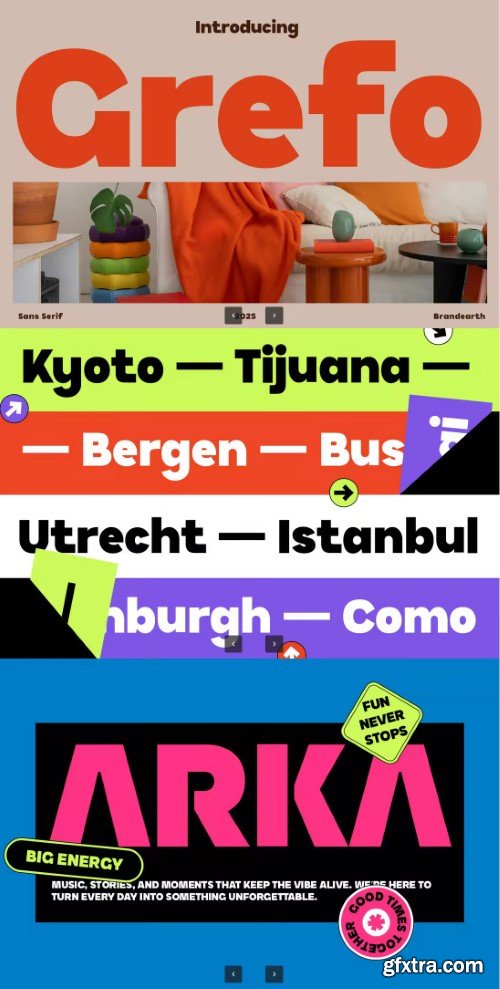
Grefo Sans Serif Font
- Grefo is a bold sans serif font built with modern proportions, geometric precision, and smooth curvature that creates a striking and versatile appearance. Its strong letterforms emphasize clarity and balance, while refined details enhance readability across various mediums. Complete with uppercase, lowercase, numerals, and punctuation, Grefo offers flexibility for diverse design applications. The font’s contemporary character blends functionality with visual strength, making it a dependable choice for both creative and professional projects.